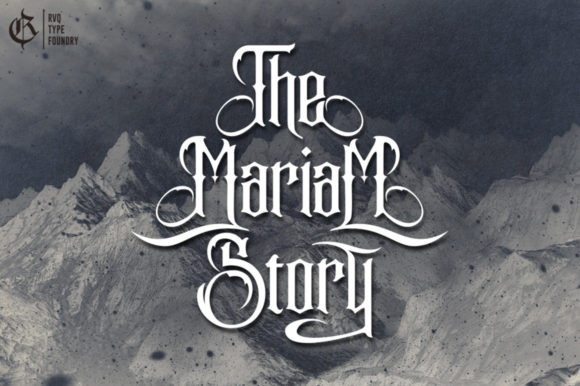
Introducing The Mariam Story Font, the ultimate choice for those seeking the best font for book titles. Created by Rvq Type Foundry, this gothic styled blackletter font is here to redefine your creative journey. Brace yourself for a truly distinct and imposing experience that will make your creations stand out from the crowd.
With The Mariam Story Font, your words will come to life, exuding an air of elegance and sophistication. Its intricate design captures the essence of classic typography, transporting your readers to a bygone era. Immerse them in an enchanting world, where each letter unveils a story waiting to be discovered.
Unleash your imagination and let The Mariam Story Font become the protagonist of your artistic endeavors. Whether you're designing book covers, crafting invitations, or curating an online portfolio, this font will elevate your work to unparalleled heights. Its timeless appeal and versatility make it the perfect companion for any project, leaving a lasting impression on your audience.
But it's not just about aesthetics. The Mariam Story Font goes beyond visual appeal, evoking emotions and creating a connection with your readers. Its bold strokes command attention, while the delicate curves add a touch of mystery. This juxtaposition creates a captivating experience that leaves a lasting impact on anyone who encounters it.